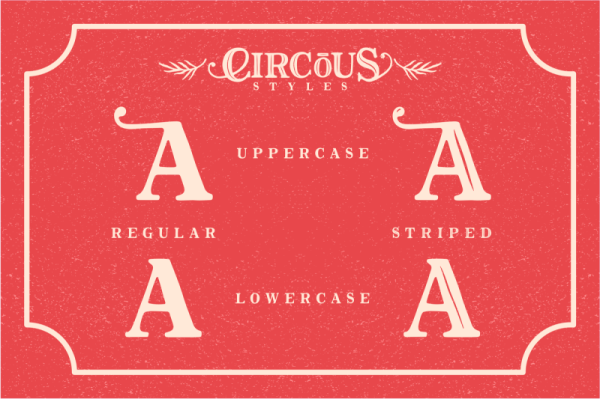
Freebie Wednesday: Circous Font
The Circous font is a classic rough style font that gives a natural effect like done by hand. This font looks pretty masculine suitable for things related to vintage or classic styles, such as logos, labels, posters, book covers, or anything that needs a classic touch.